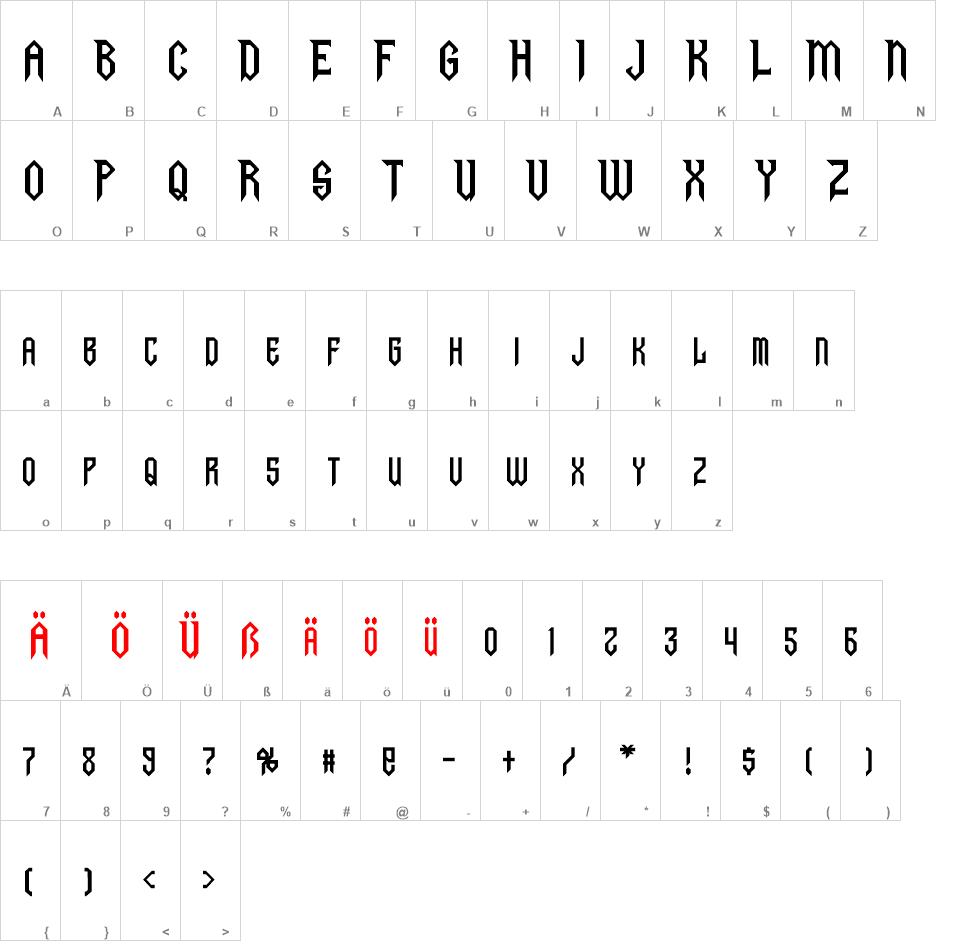
Gargoyles
Gargoyles font
Gargoyles
This harsh, gothic-based typeface is based on the logo of Disney's "Gargoyles" television show. Includes full alphabet, extended punctuation, Euro. Includes italic version.
Revised version of the font. Drops the border, fixes most of the errors and alignment issues.